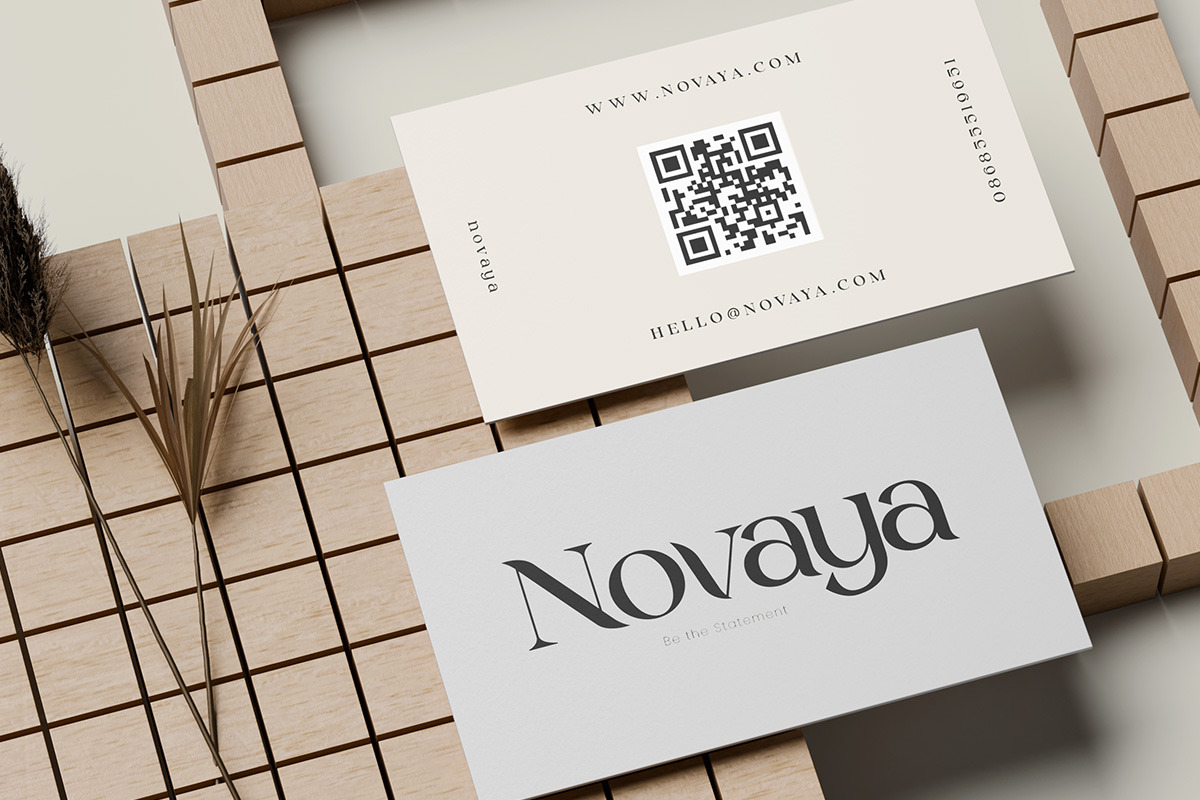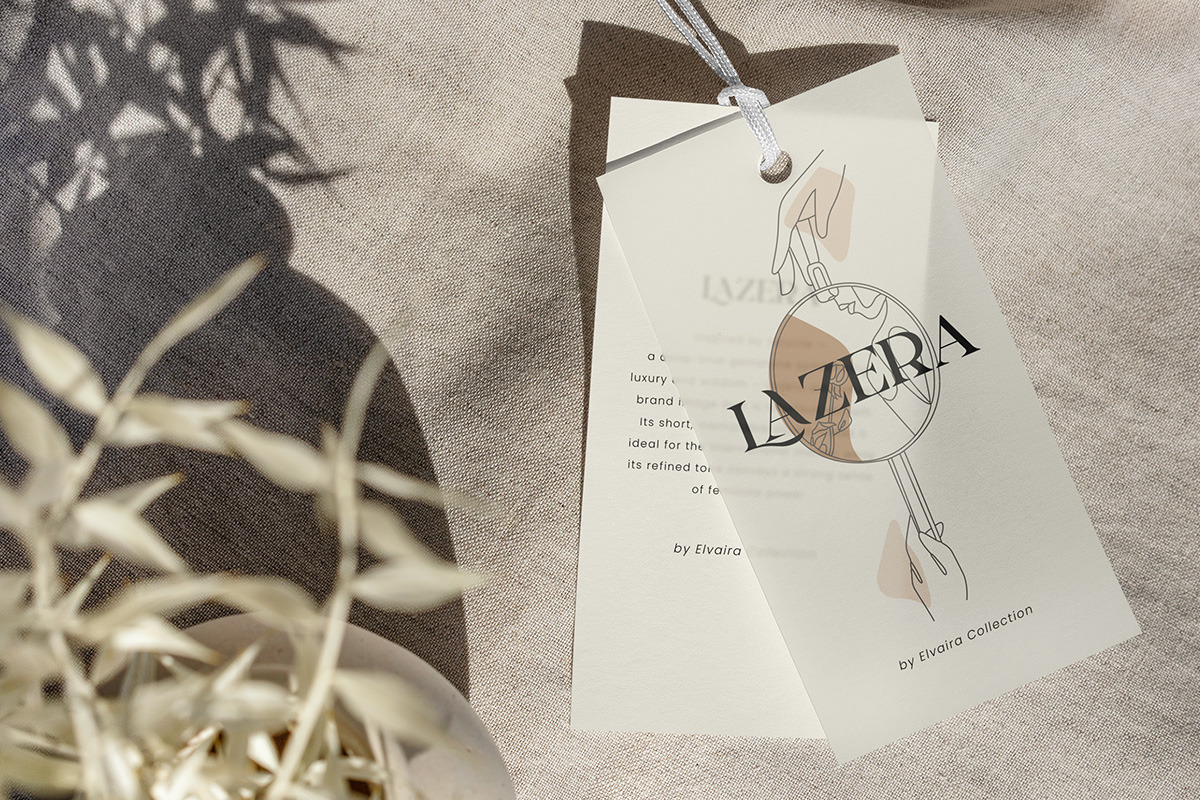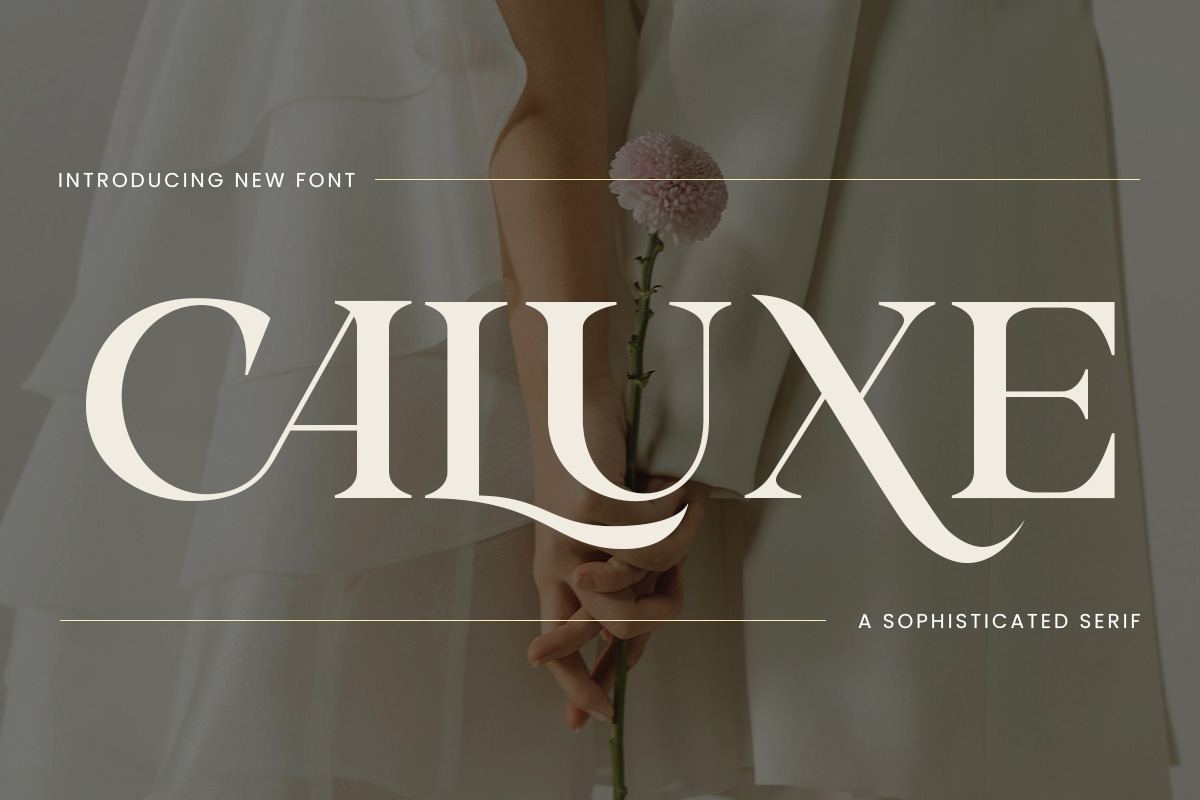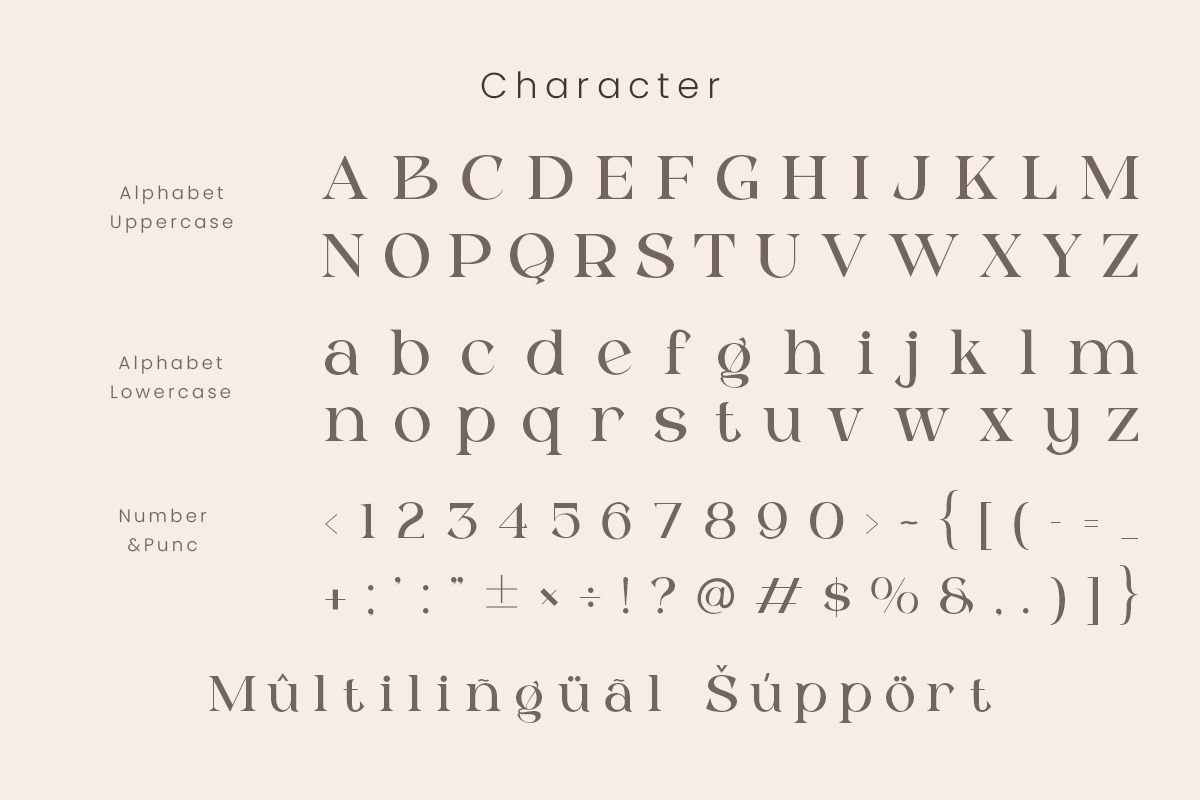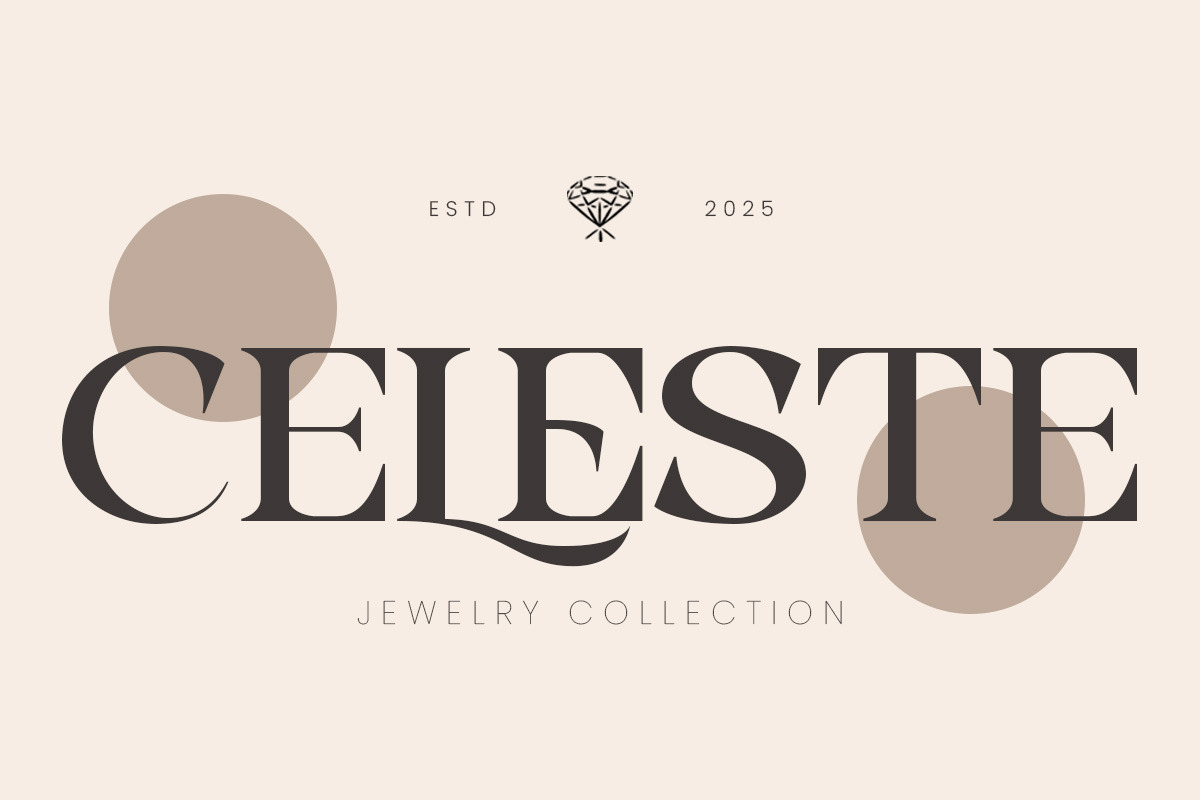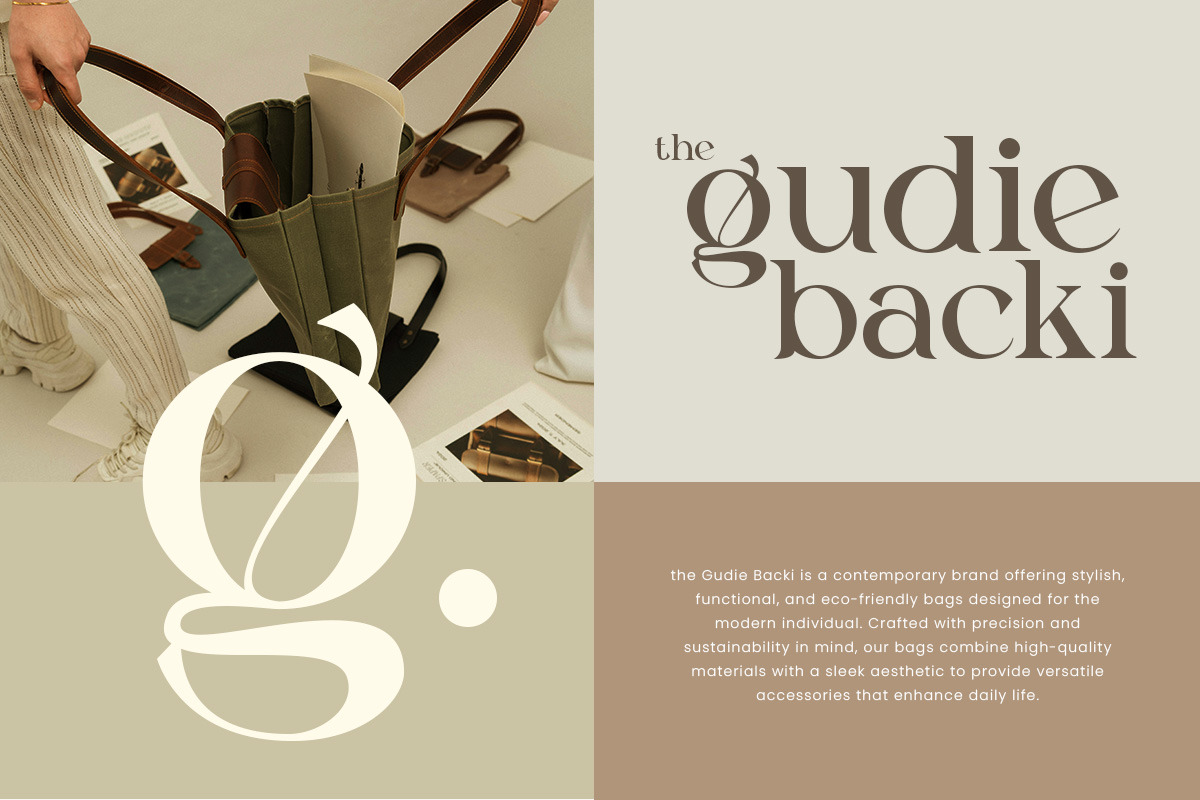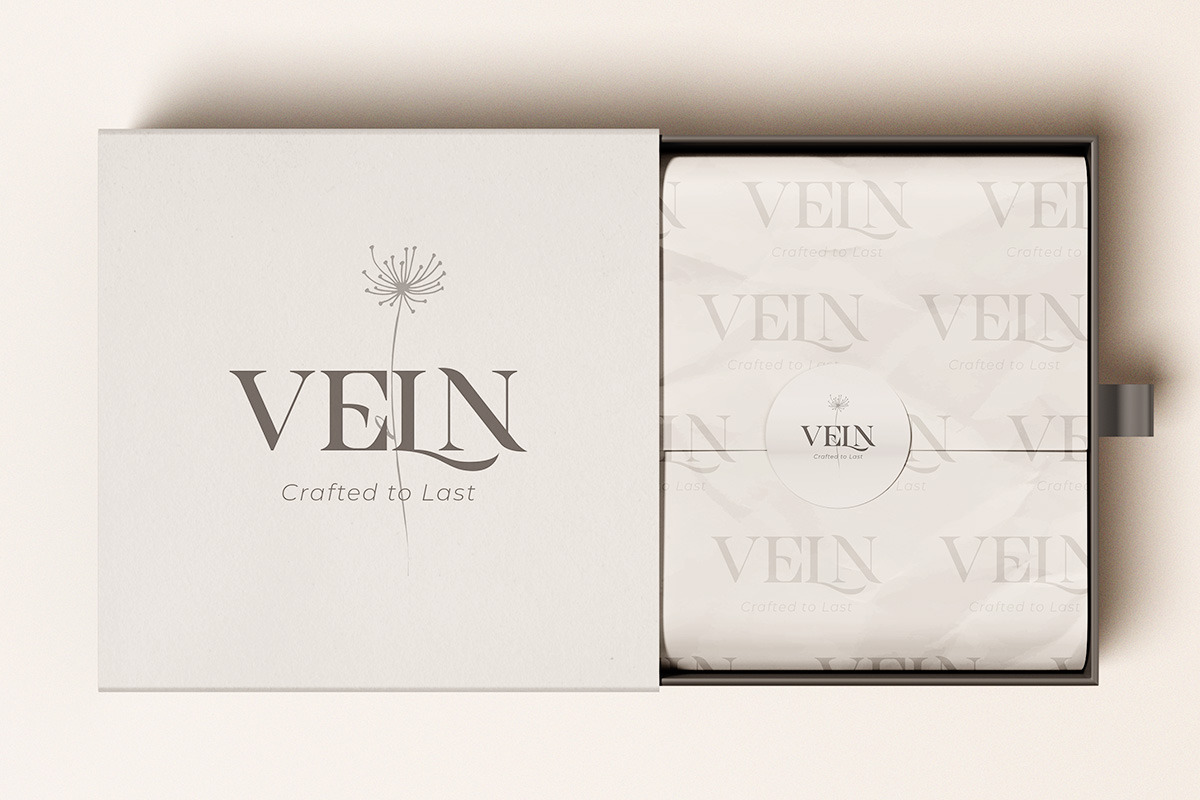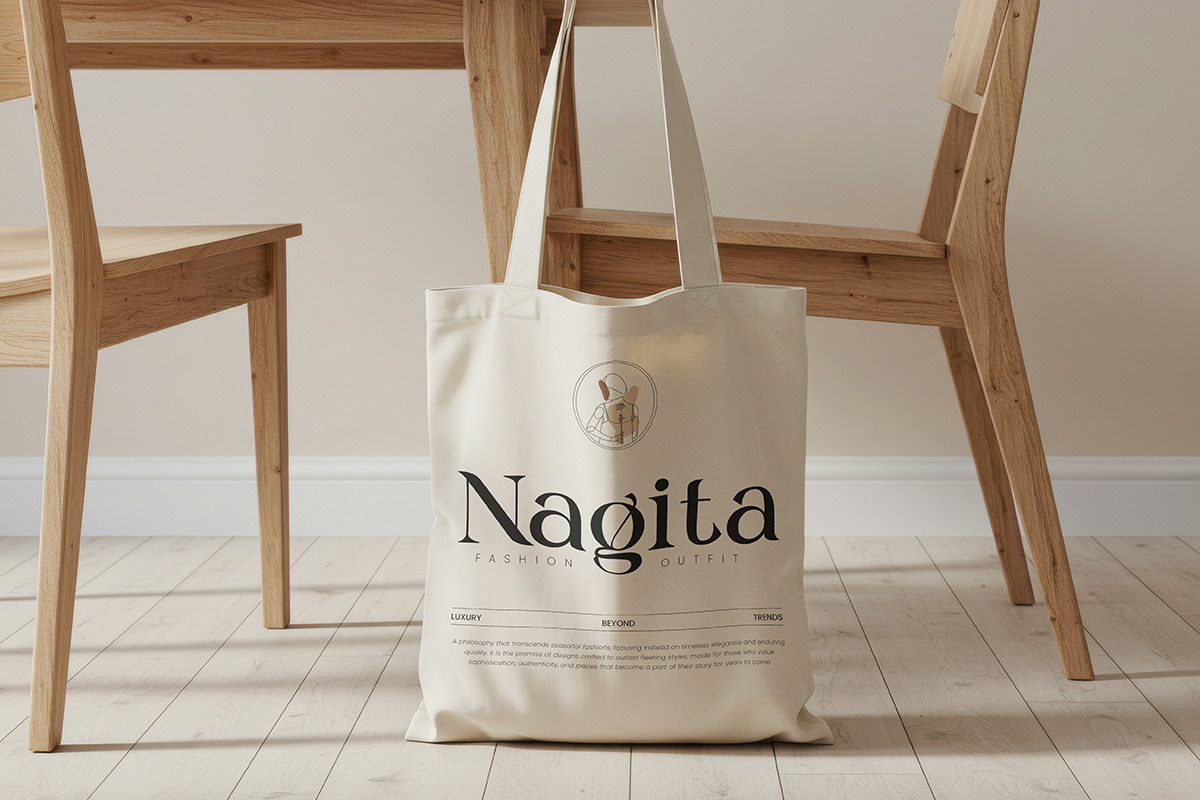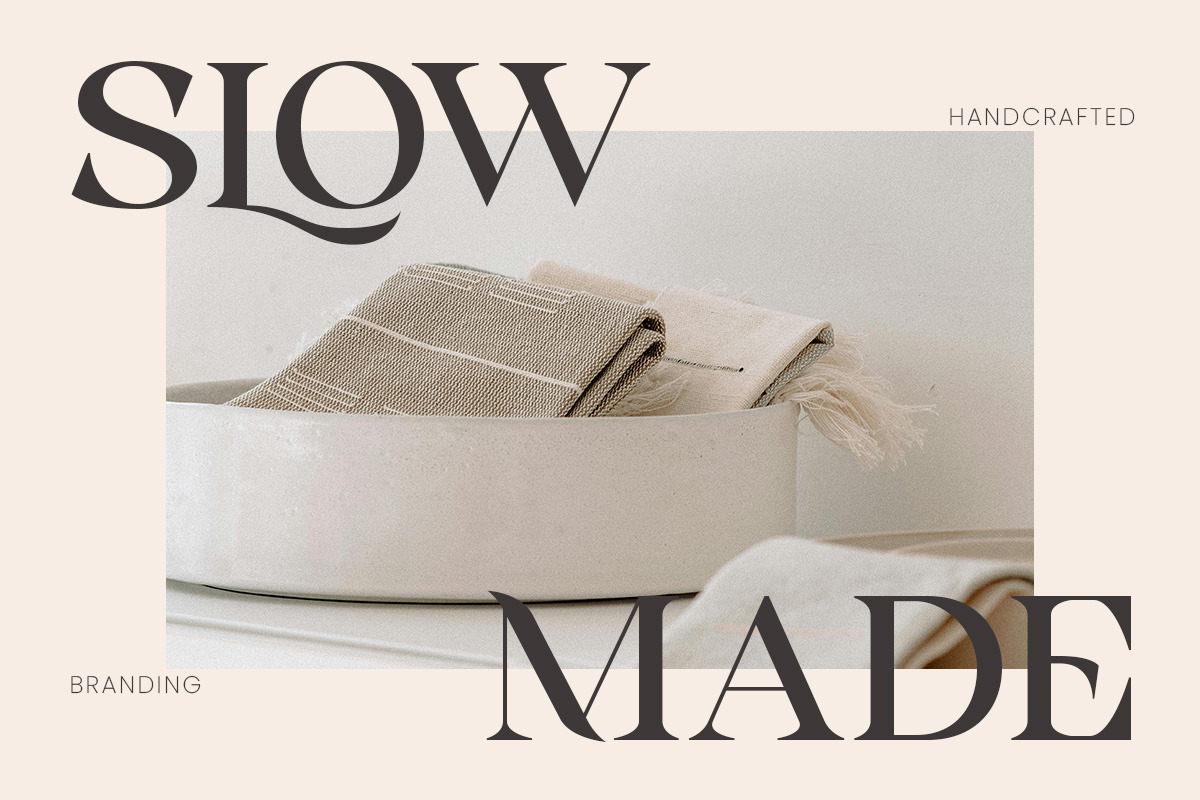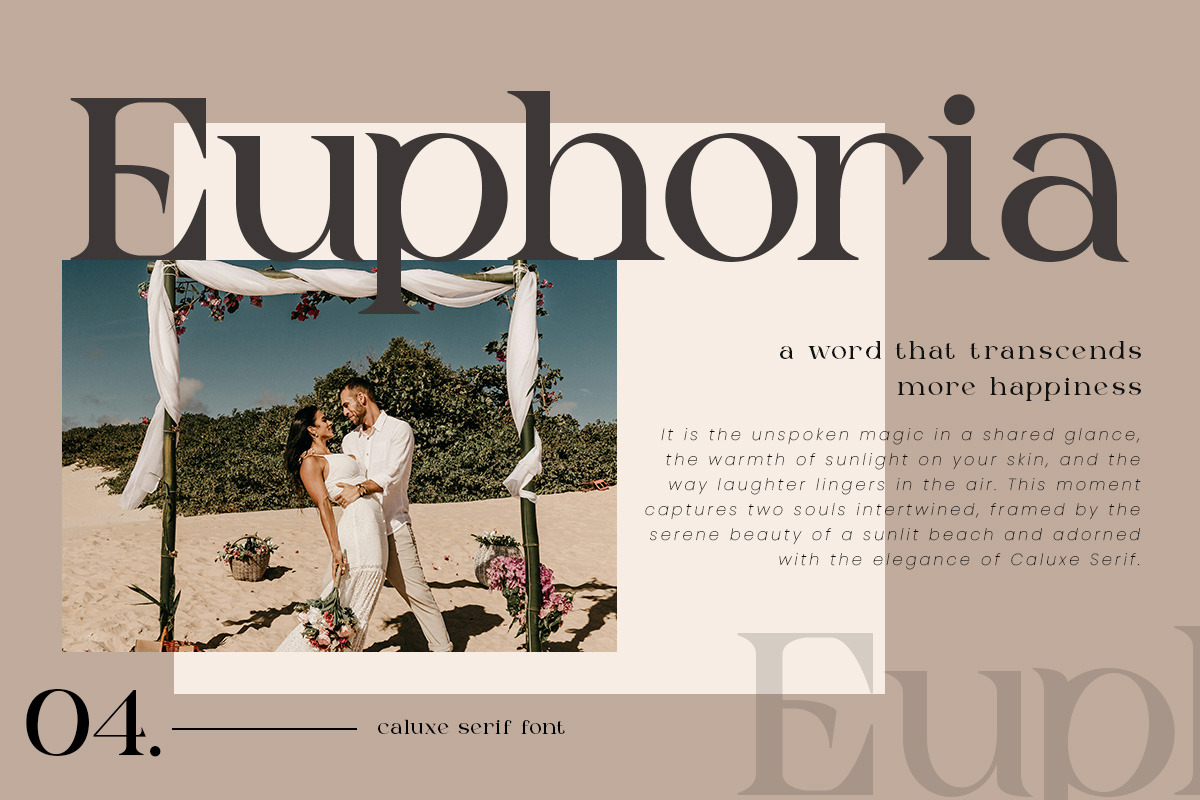
Caluxe – Modern Luxury Serif Font
Meet Caluxe - a modern luxury serif font designed with sophistication and bold elegance in mind. Its refined letterforms and graceful curves bring a sense of prestige and timeless beauty, making it the perfect choice for designers who want to add a touch of class to their creative projects. Caluxe is not just another serif — it’s a statement of luxury and modern artistry.
This font features sharp contrasts, smooth kerning, and bold yet elegant strokes that balance strength with sophistication. Every letter is carefully crafted to maintain visual harmony, offering flexibility for both large displays and fine text applications. With its versatile design, Caluxe seamlessly adapts to high-end branding, editorial layouts, and digital design trends while keeping readability intact.
Whether you’re working on a luxury brand logo, wedding stationery, fashion magazine, product packaging, or social media design, Caluxe will elevate your work with a polished and professional look. Perfect for creatives who value detail and modern elegance, this font is ready to bring your design vision to life. Try Caluxe today and give your projects the luxury they deserve.